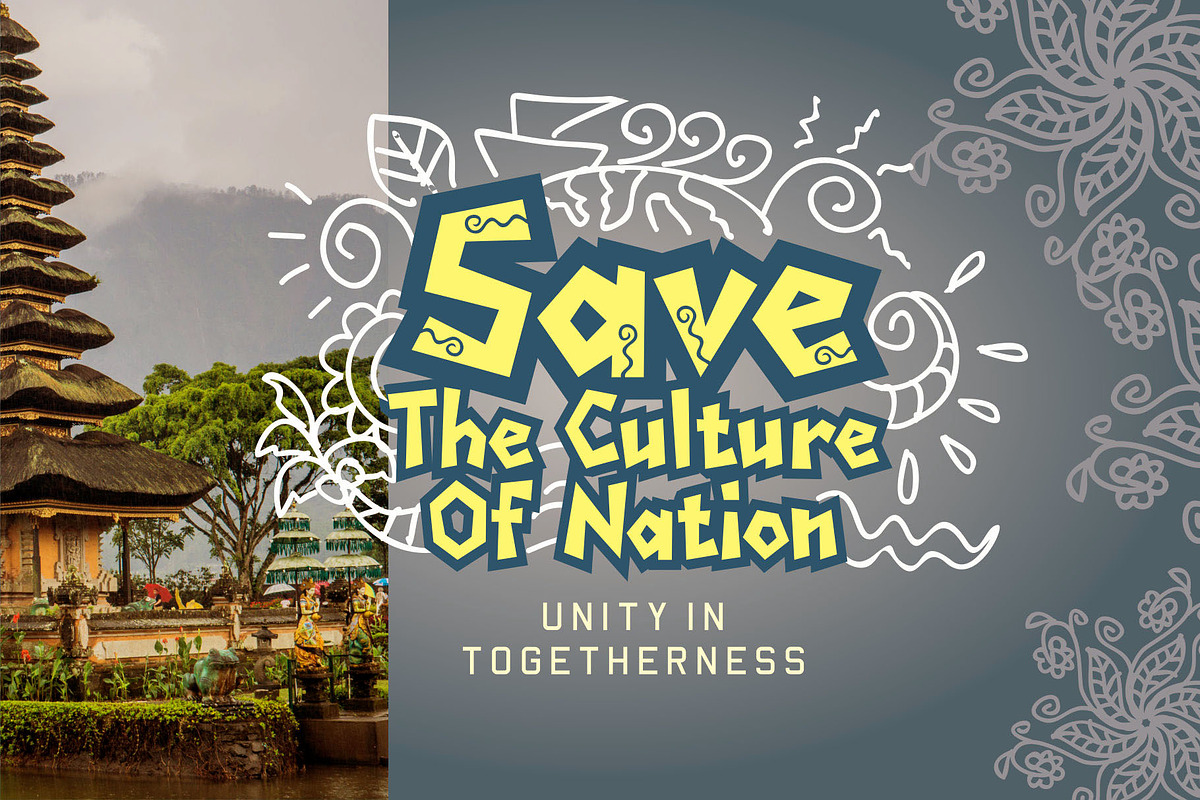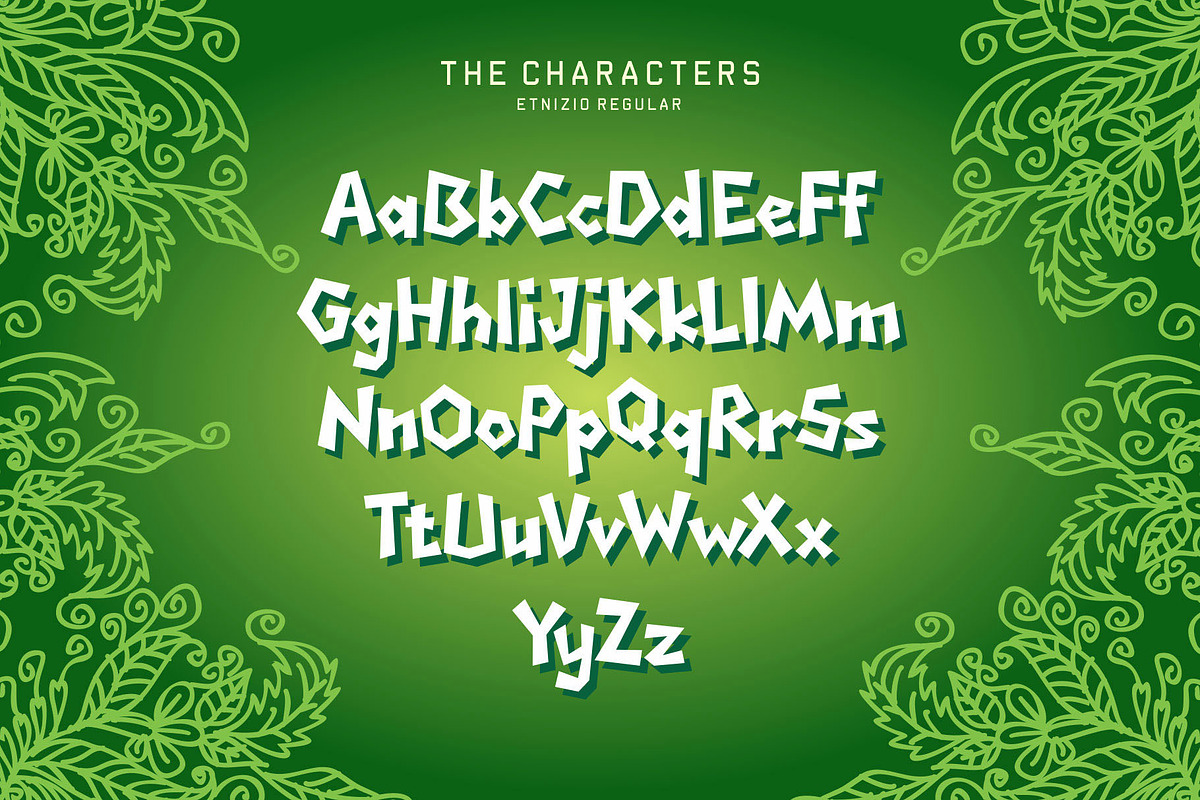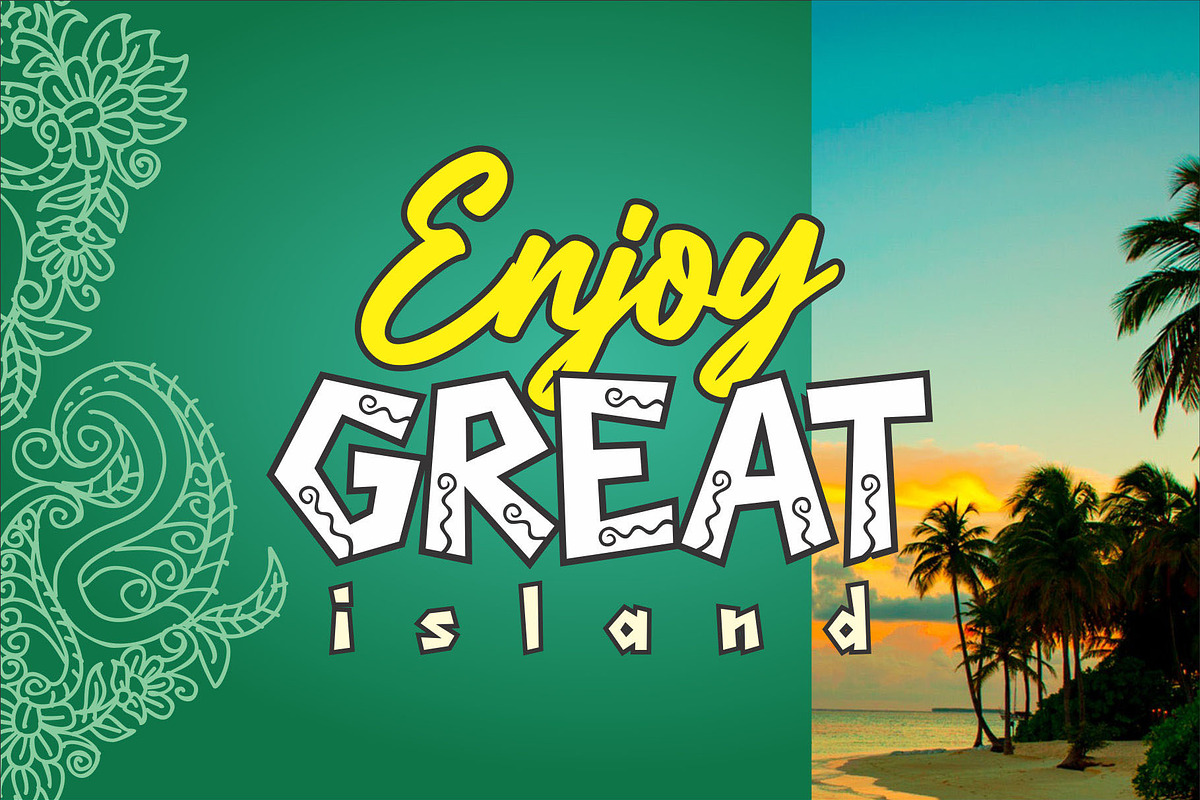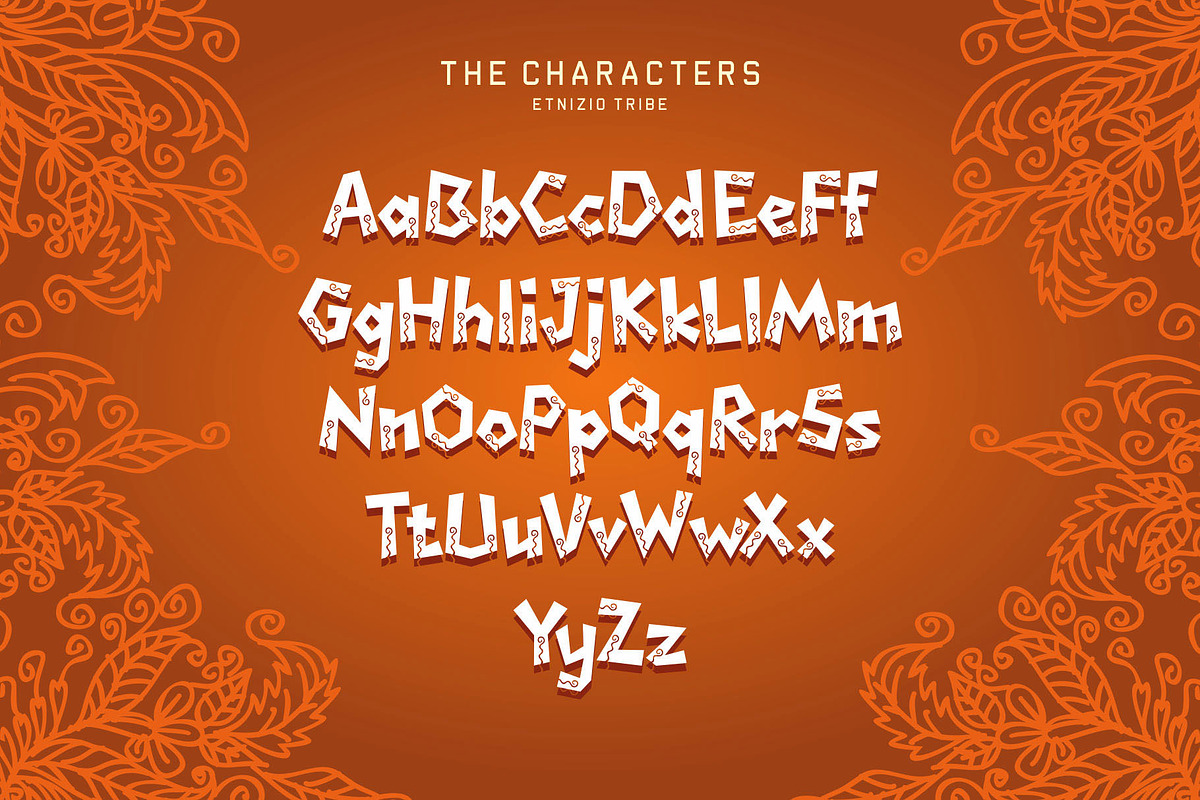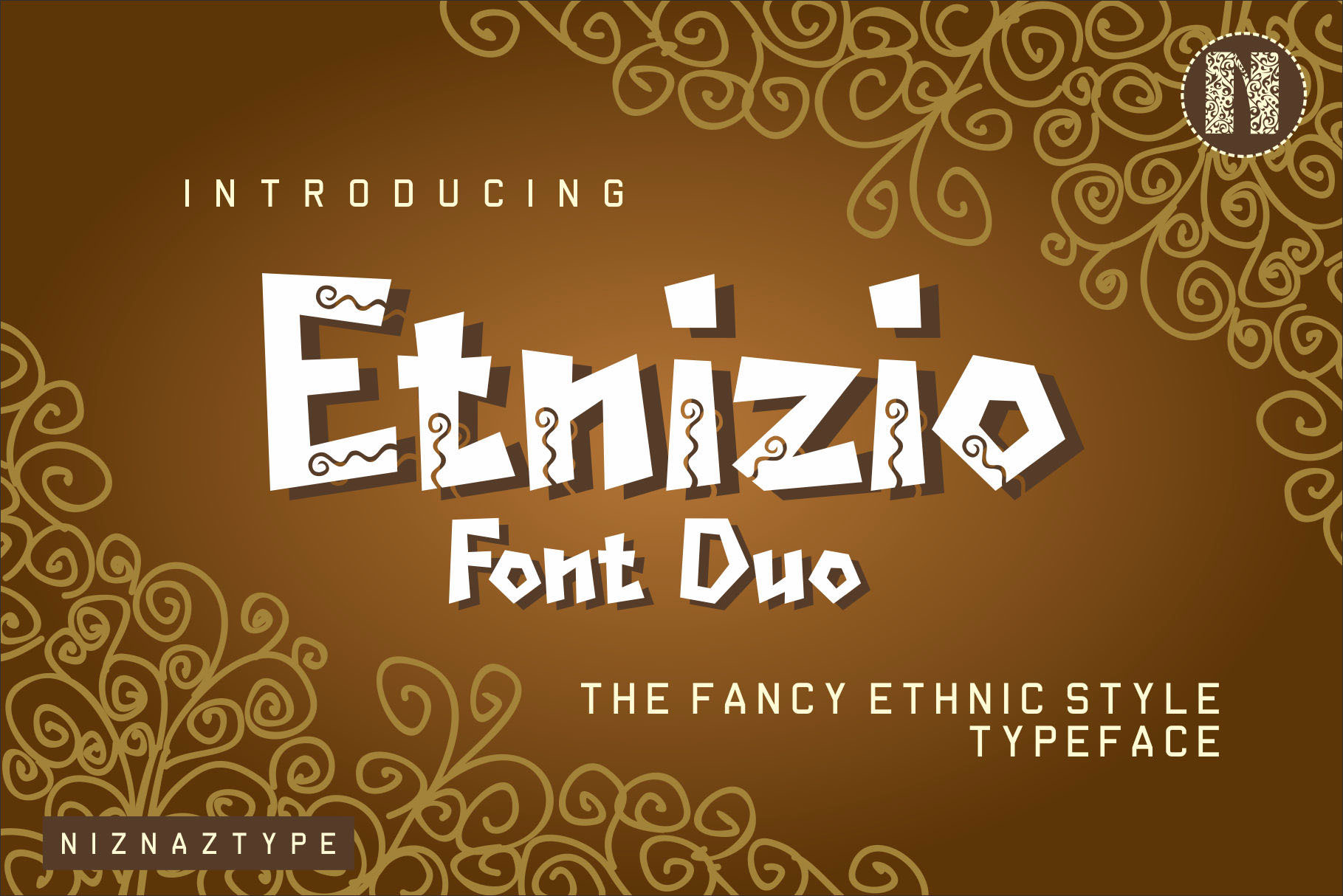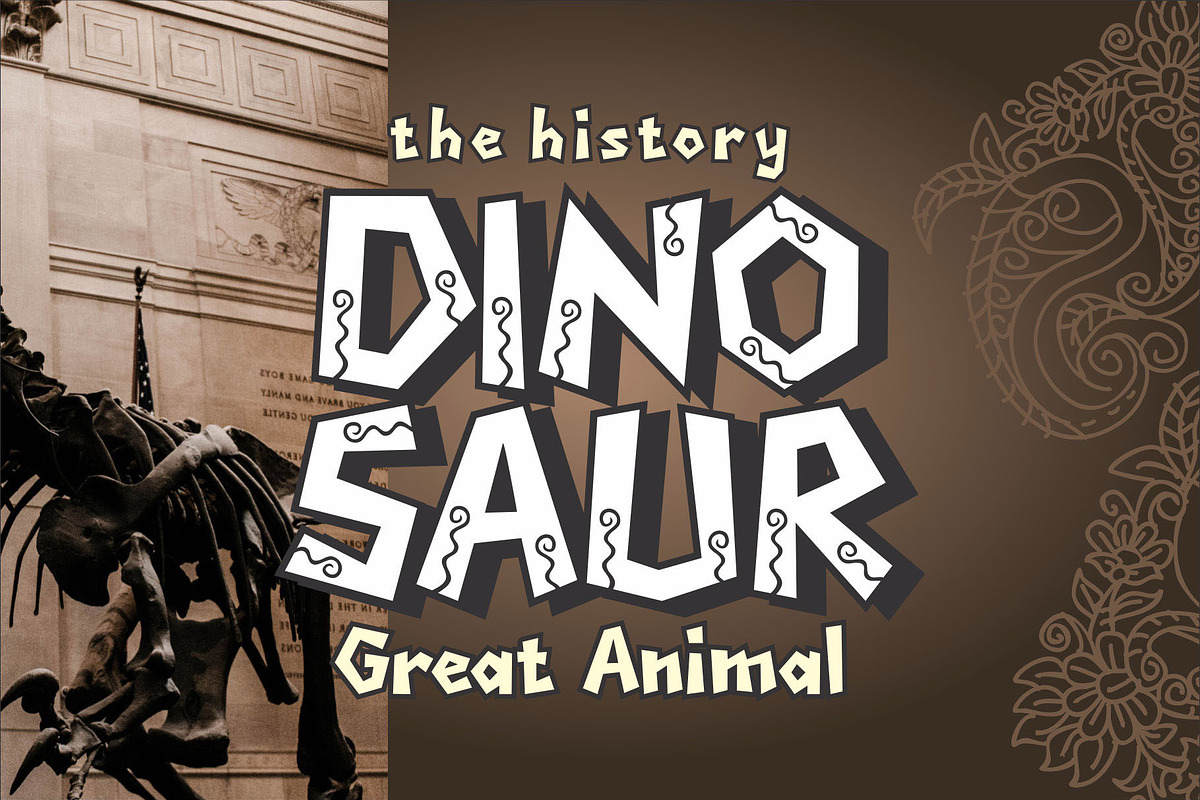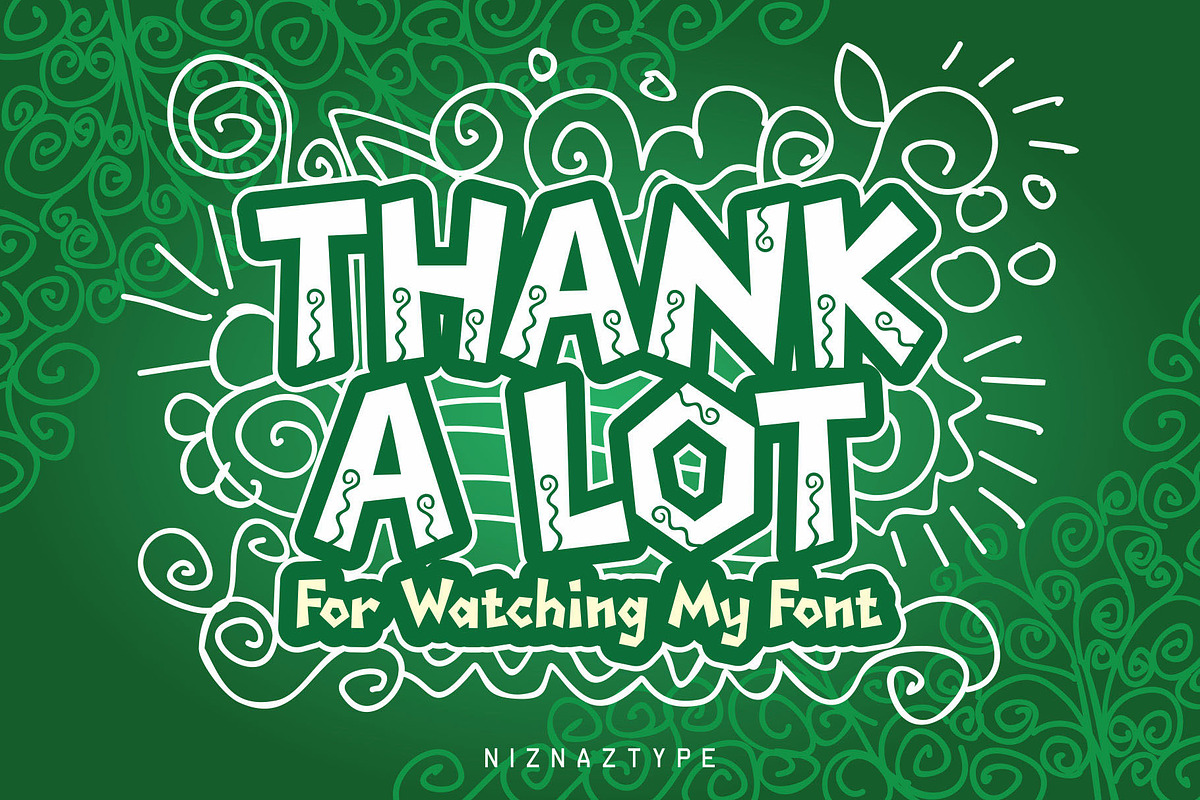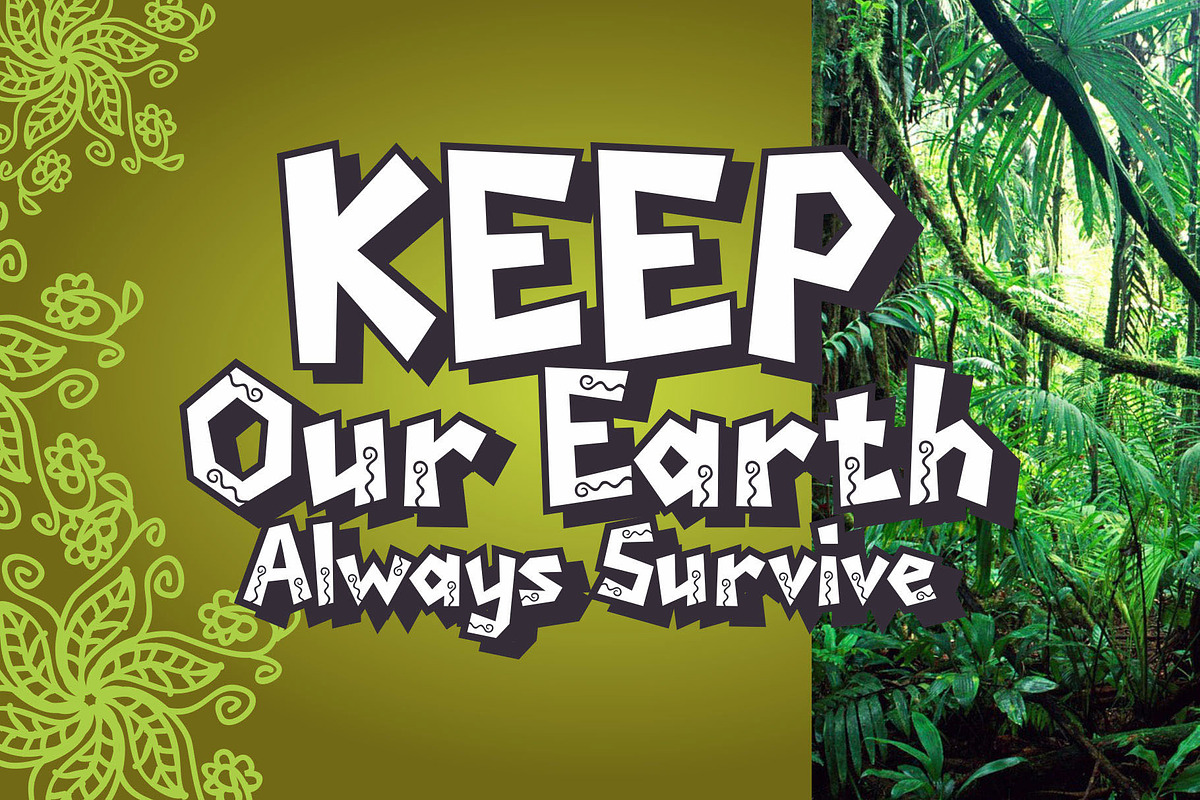
Etnizio - A Fancy Ethnic Font Duo
Etnizio font is a typeface have a unique style on ethnic characteristic. This font have a two style : regular and tribe. Etnizio very support for any graphic design that take a ethnic and culture themes. Suitable for poster, social media, tshirt, flyer, tourism theme, headline and others. Etnizio available in TTF, OTF and WOFF formats. Please enjoy your design with this unique typeface. You can contact me in emnazar2009@gmail.com if have any question.